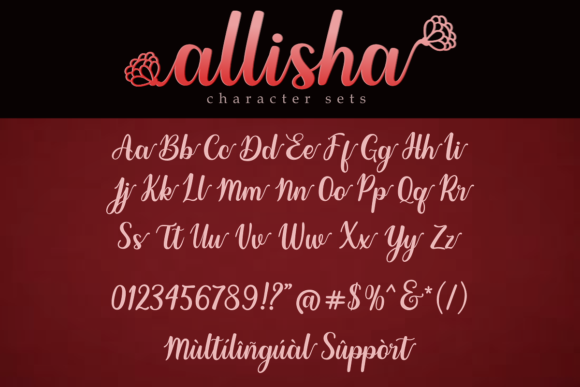
Allisha Font
Embark on a journey of creativity with Allisha Font, the enchanting handwritten font that dances with delightful floral elements. Step into a world where your designs bloom with natural elegance and unique charm. Allisha Font is the key to unlocking a vast realm of possibilities, where your imagination reigns supreme.
With its graceful curves and whimsical flourishes, Allisha Font adds a touch of magic to your projects. Whether you're crafting logos, branding materials, invitations, social media graphics, or any other creative endeavor, Allisha Font elevates your designs to new heights of sophistication. Its versatility is boundless, adapting seamlessly to a myriad of styles, from classic to contemporary and everything in between.
Dive into the depths of Allisha Font's character set, where you'll discover a treasure trove of glyphs and swashes, waiting to be unleashed onto your creations. Accessing these hidden gems is a breeze thanks to Allisha Font's PUA encoding, ensuring effortless integration into your design software.
Allisha Font is not merely a collection of letters and symbols; it's an invitation to express your individuality, to let your creativity run wild. Its natural flow and organic aesthetic bring life to your designs, captivating your audience with their effortless beauty. Experience the allure of Allisha Font and transform your creative visions into captivating realities.
Embrace the allure of Allisha Font and embark on a creative journey like no other. Its enchanting charm and versatility will ignite your imagination, leaving you breathless with its endless possibilities. Let Allisha Font elevate your designs to new heights of elegance, grace, and timeless appeal.